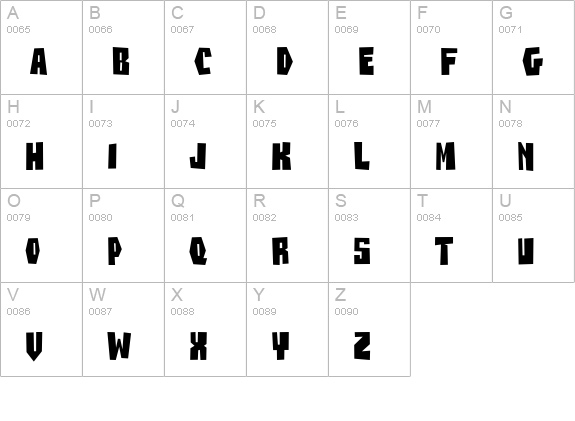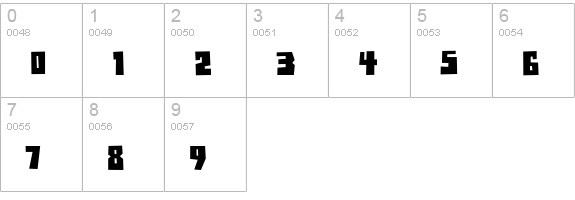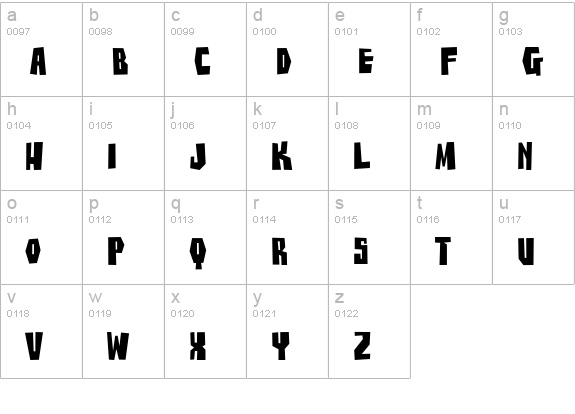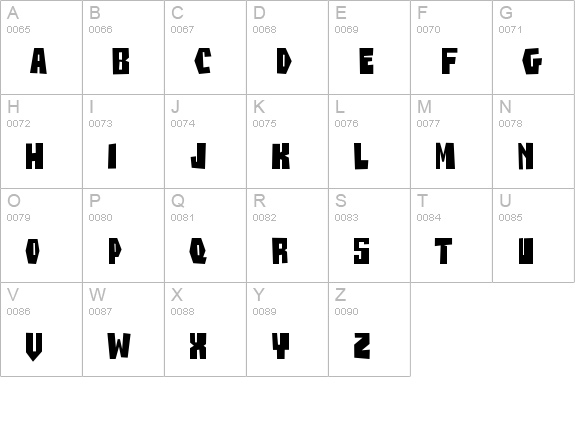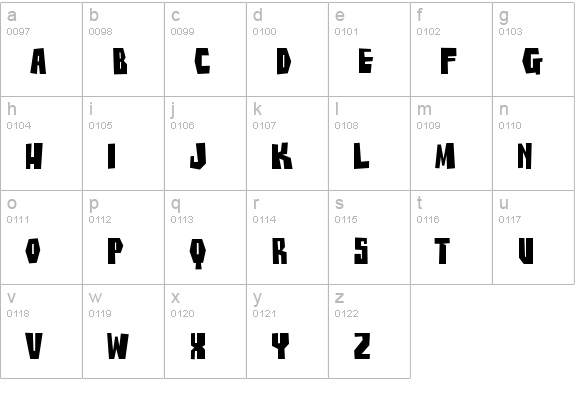
BuzzSawAOE Font Details
BuzzSawAOE font is a unique and eye-catching typeface that is perfect for making a bold statement in your designs. The sharp, angular design of the letters gives this font a modern and edgy look that is sure to stand out. Whether you're creating posters, logos, or social media graphics, BuzzSawAOE is the perfect choice to add a touch of excitement to your projects. The best part? BuzzSawAOE font is completely free to download at FontsMarket.com. This means you can easily add this striking font to your collection without breaking the bank. Don't miss out on the opportunity to enhance your designs with the powerful and dynamic BuzzSawAOE font - download it for free today!